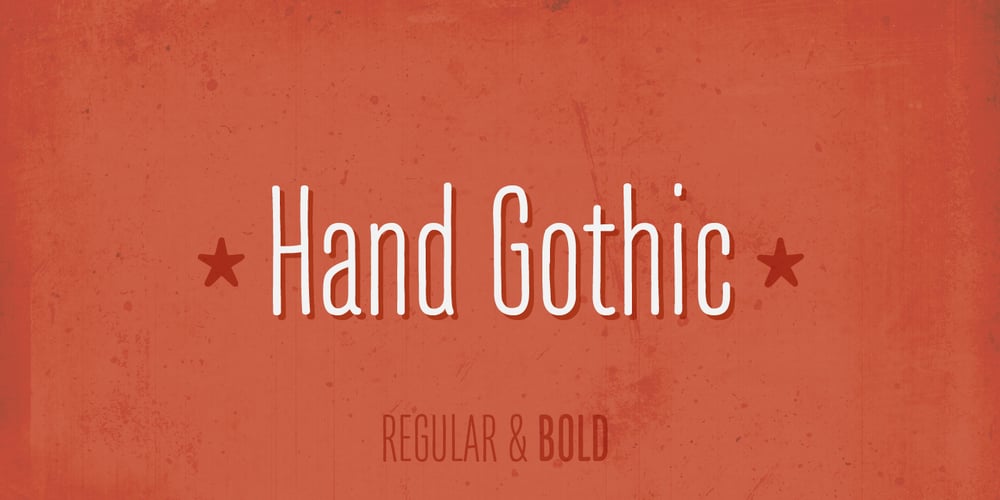
Hand Gothic Font Family was designed by Joël Carrouché and published by JCFonts. Hand Gothic contains 2 styles and family package options. Hand Gothic is a condensed typeface with a hand-lettering feeling, available in two weights. The fonts, provided in OpenType format, include support for most European languages and some OpenType extras : ligatures, alternate “A” and “g”, case-sensitive forms and a handful of arrows and icons.